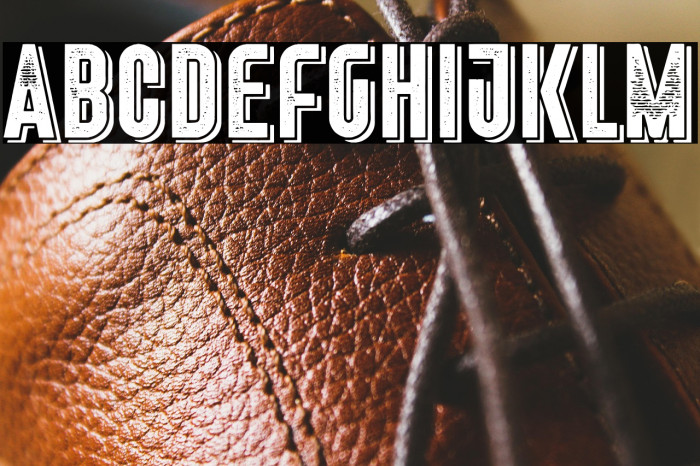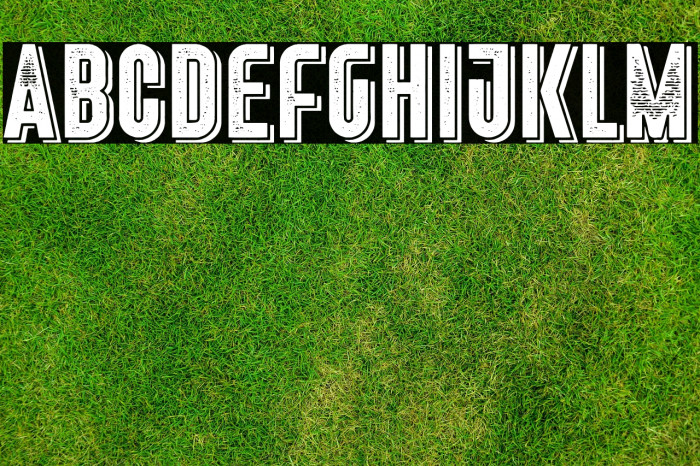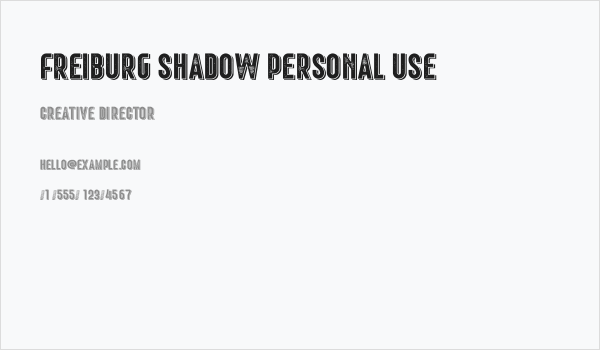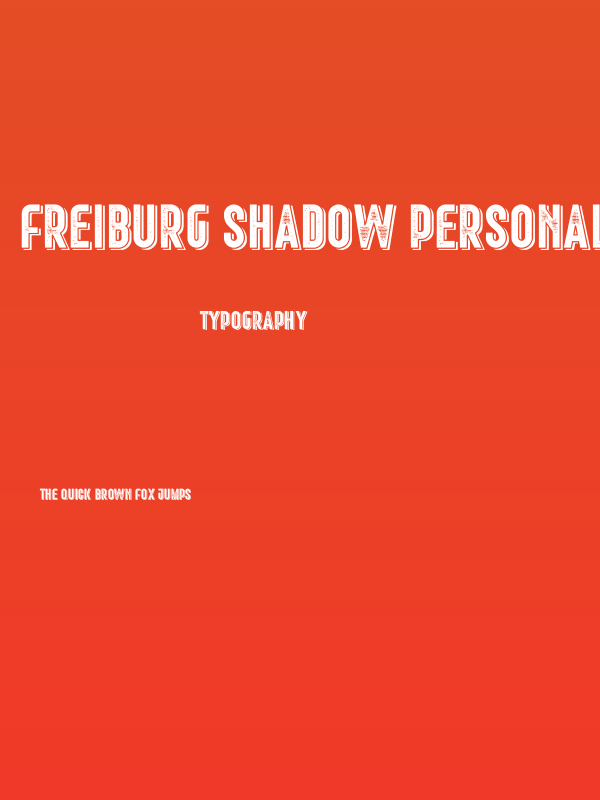
Freiburg Shadow PERSONAL USE Font
Freiburg Shadow PERSONAL USE Description
This font features a bold, shadowed design with a distressed texture, giving it a vintage and rugged appearance. The uppercase letters are prominent and impactful, making them ideal for attention-grabbing headlines. The numbers and special characters maintain the same bold style, ensuring consistency across different uses. The shadow effect adds depth, making the characters stand out, while the distressed texture adds a touch of character and uniqueness. This font is perfect for projects that require a strong, vintage aesthetic.
| Proposed Projects | Ideal for posters, vintage-themed designs, branding, and logos that require a strong and distinctive presence. |